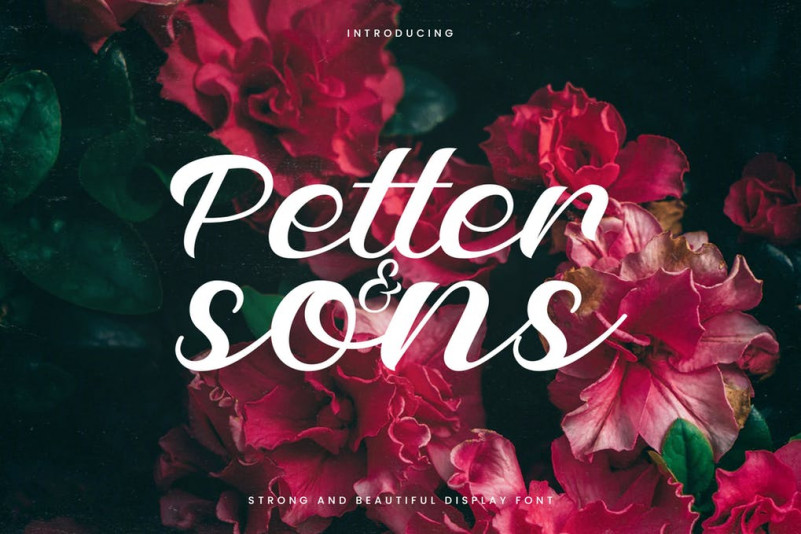
Petter And Sons Font
Petter and Song handwirtten signature font is a handcrafted font that represents a romance and feminine side of a person who is using it. The combination of the soft touch and simplicity makes this font match pefectly with most occasion in our daily life. Explore the possibilites and have fun with it!